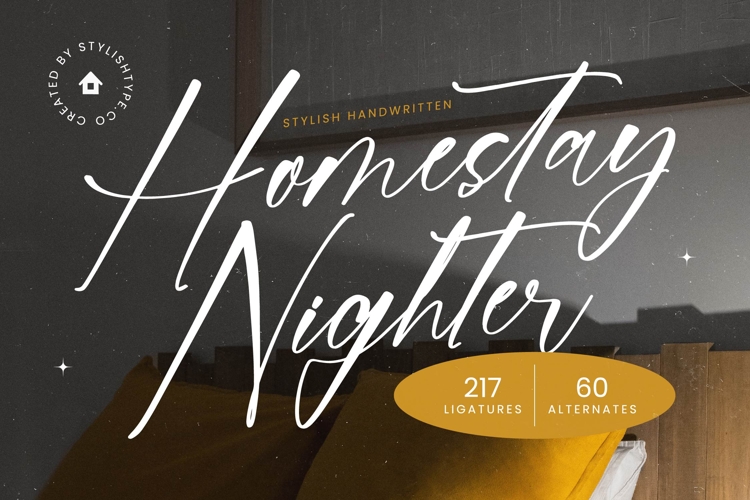
Homestay Nighter - Stylish Handwritten Font
Elevate your designs with a touch of authentic, handcrafted sophistication. Introducing Font Homestay Nighter - Stylish Handwritten Font Script, a truly captivating typeface embodying effortless elegance and organic flow. Its distinctive high-contrast strokes and natural, free-flowing rhythm create an immediate sense of warmth and charm, setting a new standard for sophisticated script typography, making every word feel uniquely bespoke.
Unleash unparalleled creative flexibility with its rich feature set. Font Homestay Nighter - Stylish Handwritten Font Script boasts 217 ligatures and 60 alternate characters, offering endless possibilities to customize and perfect text for a truly unique presentation. With its extensive multilingual support, Font Homestay Nighter - Stylish Handwritten Font Script adapts seamlessly across global markets, making it incredibly versatile for international projects and ensuring universal appeal.